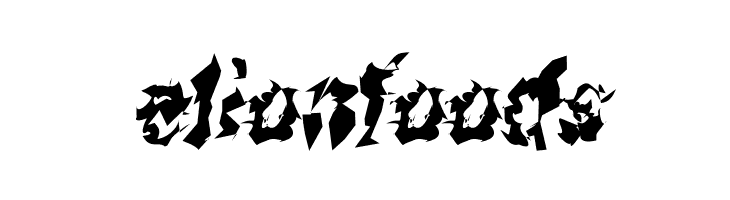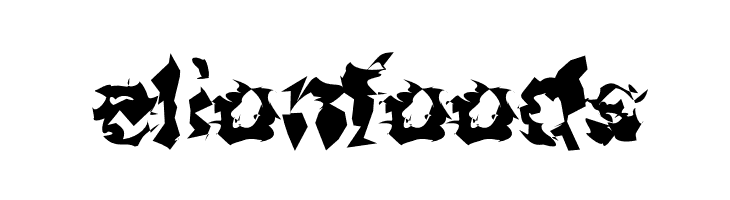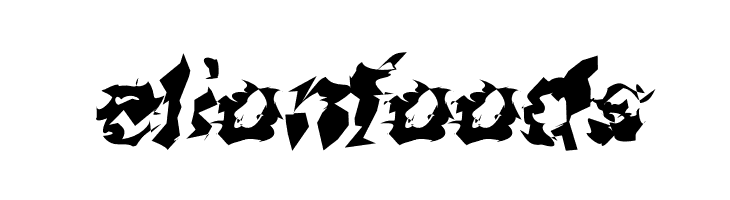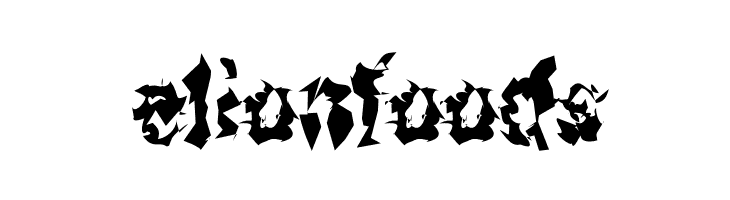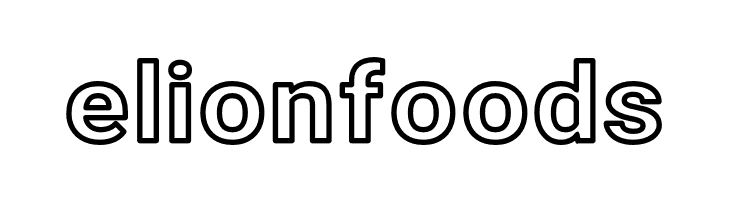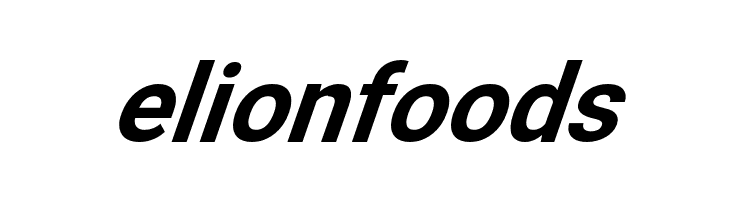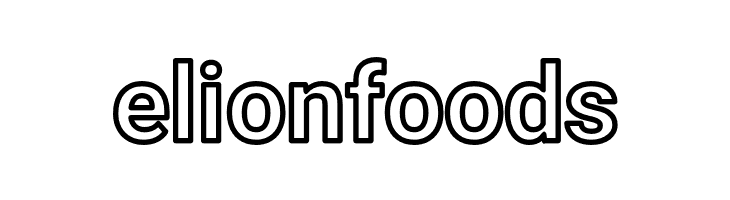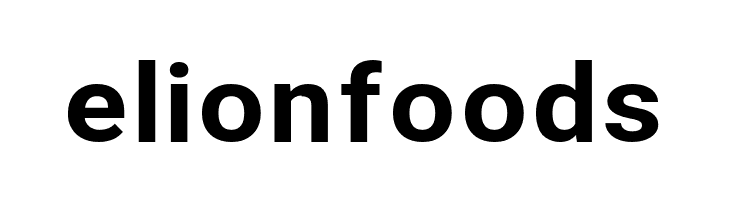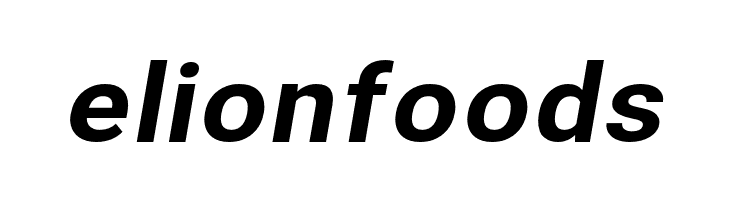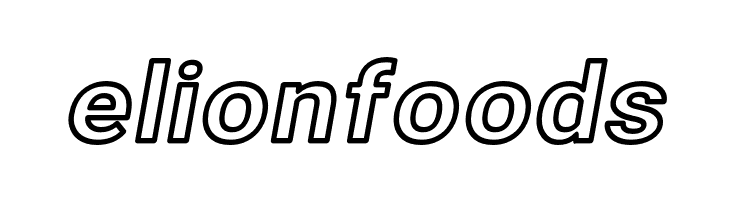
• Asimov Silicon Narrow
A fragmented, angular font with a futuristic and edgy style.
• Asimov Silicon Narrow Italic
A jagged, futuristic font with sharp, angular characters and a dynamic, edgy style.
• Asimov Silicon Wide
A highly decorative and abstract font with sharp, angular shapes and fragmented forms.
• Asimov Silicon Wide Italic
A bold, wide, and italic decorative font with a fragmented, abstract design.
• Asimov SuperItalic
• Asimov Wide
A bold, modern sans-serif font with clean lines and geometric structure.
• Asimov Wide Italic
A modern, wide, and italicized font with bold characters and a sleek design.
• Asimov Wide Outline
A bold, wide outline font with a modern and impactful style.
• Asimov Wide Outline Italic
A bold, wide outline italic font with a modern and dynamic style.
• AsimovOu
A bold, outlined font with a modern, geometric style.